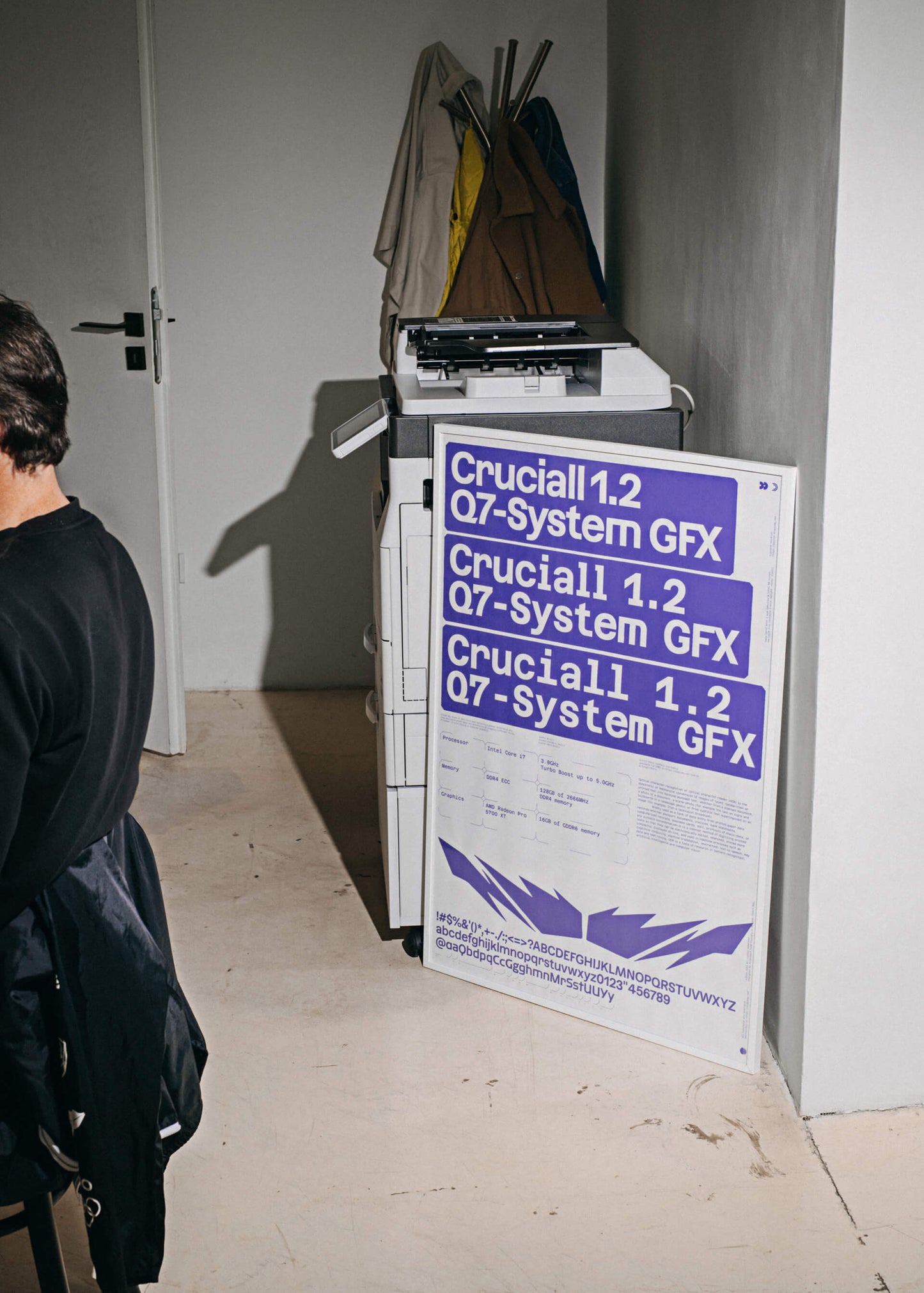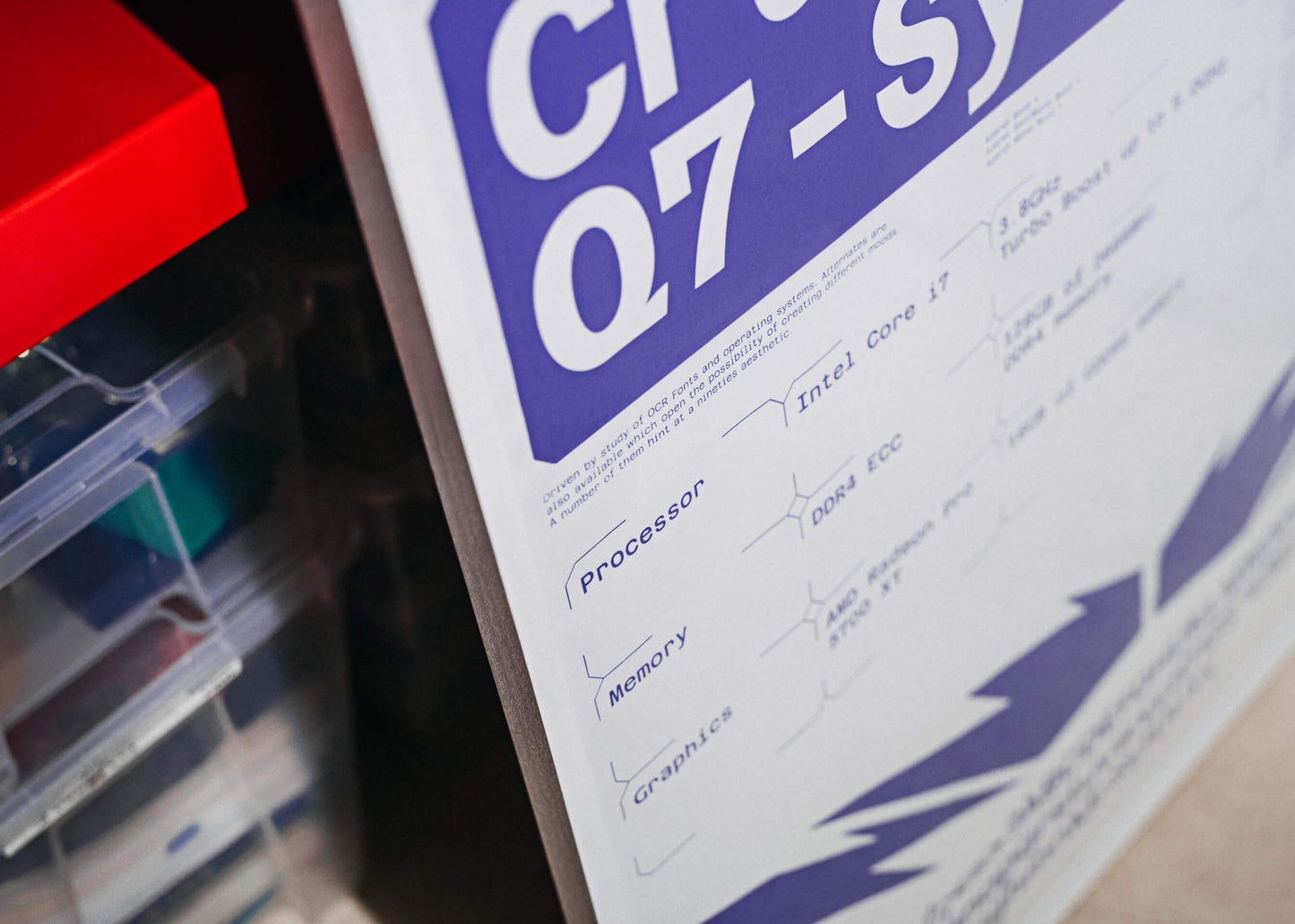
Azeret POSTER
The story behind the design of the Azeret typeface is an exploration of OCR fonts, past and future operating systems, various interfaces, and the 90s. The specimen poster, Crucial 1.2 Q7-System GFX, takes inspiration from these visual systems and interprets them in our own and exciting way.
The posters are screen printed by Analog Bros in Prague using chemical-free watercolour paint.
Font in use: Azeret